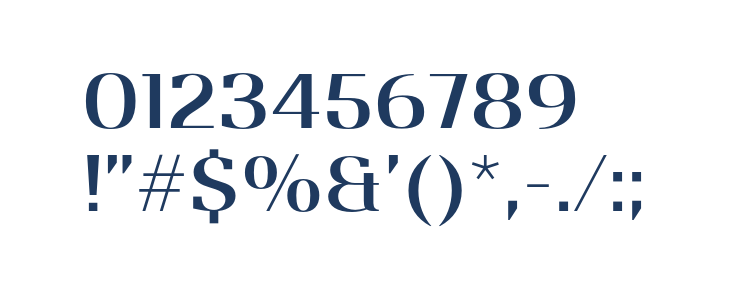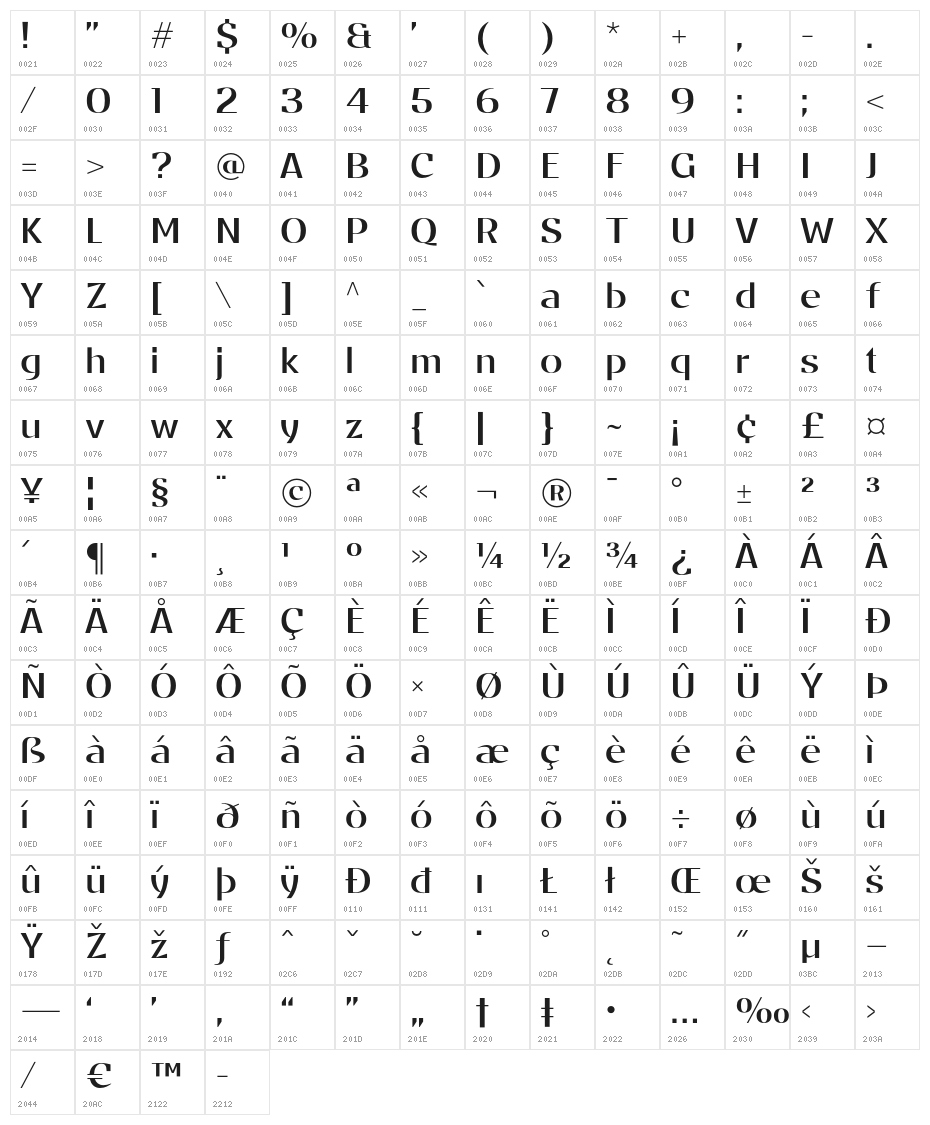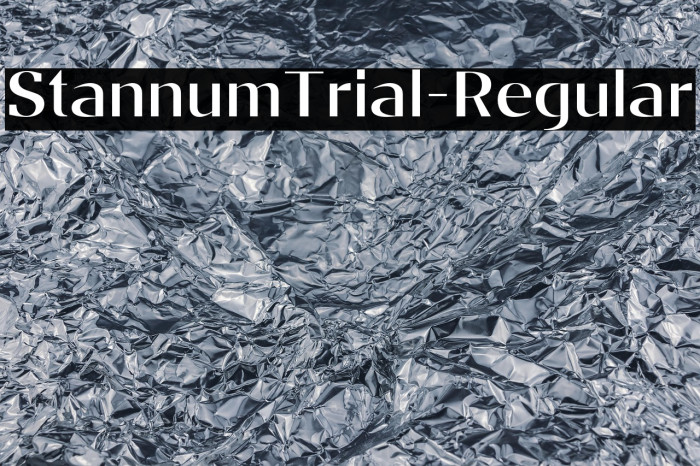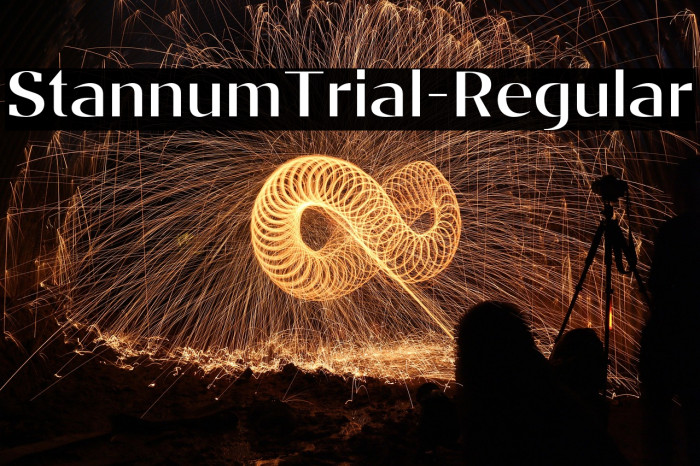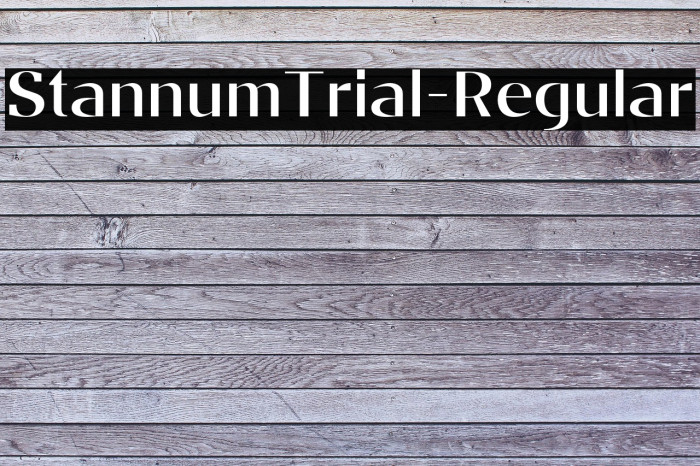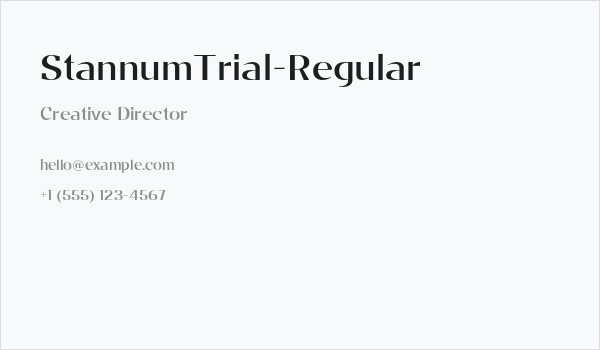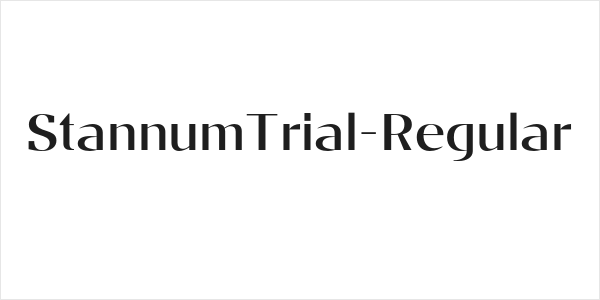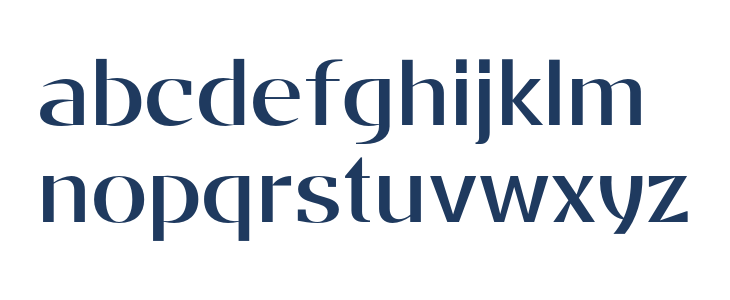
StannumTrial-Regular Font
StannumTrial-Regular Description
This font features a modern and elegant design with clean lines and a slight contrast in stroke thickness. The uppercase letters are bold and commanding, while the lowercase letters maintain a smooth and consistent flow. The numerals are well-proportioned, ensuring readability and balance. Special characters are distinct and harmonize well with the overall style. The font's design is versatile, making it suitable for various applications where clarity and sophistication are desired.
| Proposed Projects | Ideal for branding, editorial design, advertising, and digital media where a modern and sophisticated look is required. |